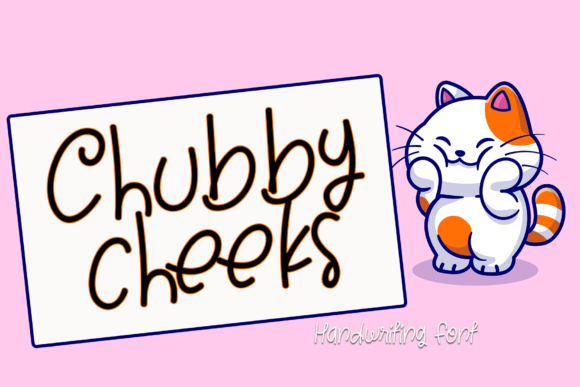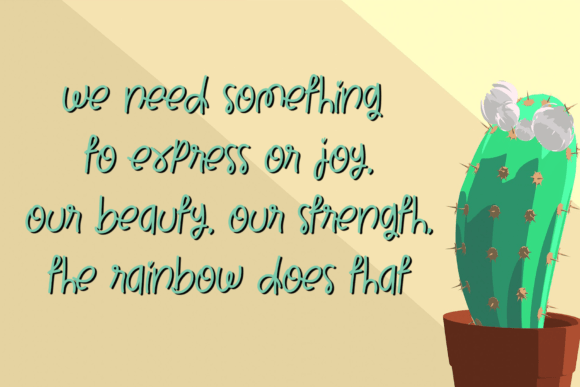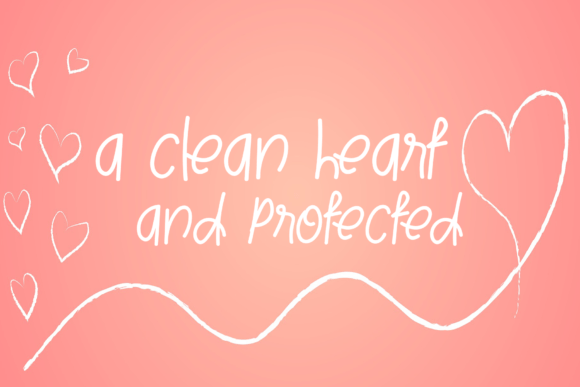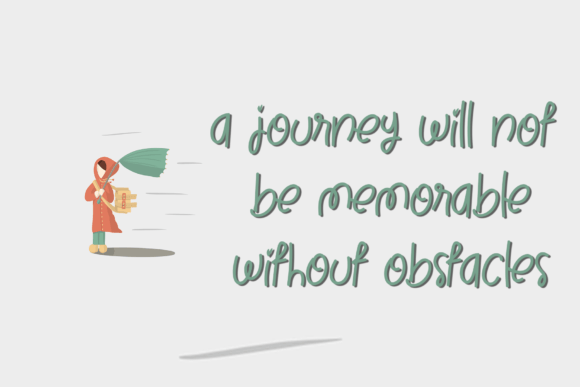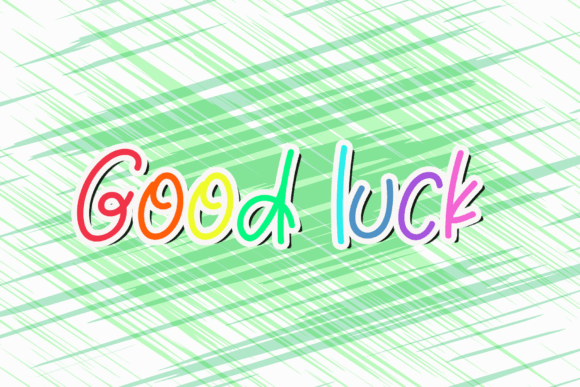
Chubby Cheeks Font
About Chubby Cheeks Font
Introducing “Chubby Cheeks,” a cute and whimsical handwritten font designed to embody playfulness and authenticity. This typeface is the perfect choice for any children’s activity, school project, or any design that requires a friendly and lively touch. Add this charming font to your designs and watch how it brings them to life with its adorable and playful appeal!
The cute and whimsical qualities of Chubby Cheeks make it an ideal font for projects aimed at children or anything that requires a lighthearted and friendly atmosphere. Whether you’re creating materials for educational activities, children’s books, or any design that needs a playful touch, this font adds a delightful charm.
In the realm of children’s activities and school projects, Chubby Cheeks becomes a defining element that captures the attention of young audiences. Its handwritten and friendly style creates a connection with children, making the content more engaging and enjoyable.
For children’s books, Chubby Cheeks contributes to a whimsical and lively reading experience. The font’s playful appeal enhances the overall aesthetics, making the text more visually appealing and inviting for young readers.
The versatility of Chubby Cheeks ensures that it can adapt to various design contexts, making it a valuable tool for a range of creative projects. Its cute and whimsical vibe brings an authentic and friendly energy to your text.
In summary, Chubby Cheeks is more than just a font; it’s a creative tool designed to bring a cute and whimsical handwritten style to your projects. Whether you’re working on children’s activities, educational materials, or any design that needs a friendly touch, let Chubby Cheeks be the font that adds a sense of playfulness and charm to your creative endeavors.